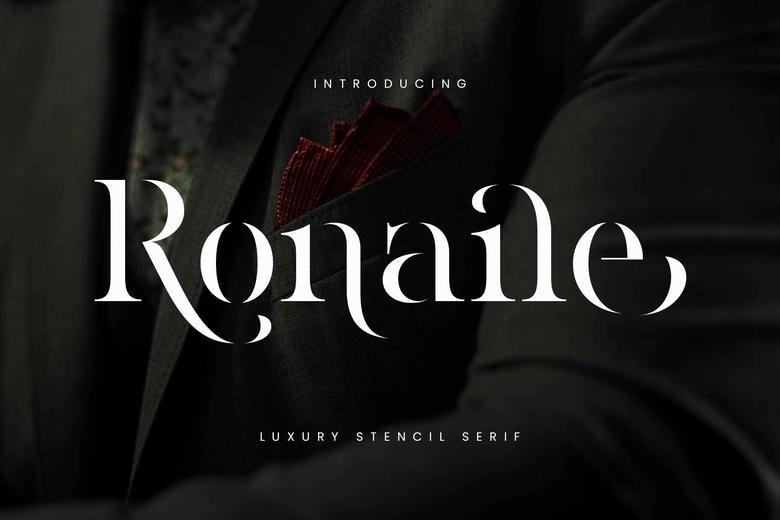
Ronaile Font
Ronaile is a tasteful and contemporary serif typeface with stencilled stroke that conveys luxury vibe in any creation. This typeface is raw and fresh, it stands out with dominant contrasts and crisp, nearly cutting edges yet it can be read with perfect clarity. The reduced thickness of the lines give this typeface a very stylish and elegant appearence which sets it out as a display font, perfect for beautiful names like Ronaile.
Ideally suitable for logos, fashion branding, editorial design, wedding invitation cards, packaging and more, Ronaile has a mature and modern outlook. Make your graphic design projects look classy and daring with this standard, distinctive typeface.
Ronaile Serif Font